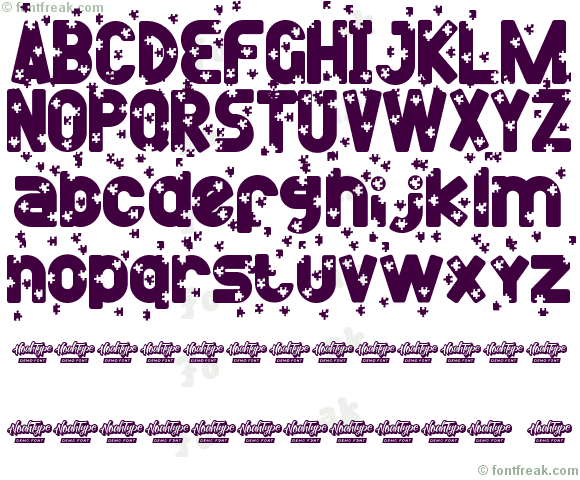
Mini Puzzle Demo
About Mini Puzzle Demo
The Mini Puzzle Demo font by Noah Type is a unique display typeface that captivates with its playful and whimsical style. This font features a chunky, bold design that exudes a sense of fun and creativity, making it ideal for various graphic applications. Its stroke weight is consistent throughout, providing a robust presence while allowing for legibility. The characters are spaced generously, enhancing readability and ensuring that each letter stands out, while the decorative puzzle-like elements add a distinctive flair that engages the viewer's attention.
This font is particularly well-suited for use in children's books, educational materials, or any project that aims to convey a sense of joy and playfulness. It can also shine in marketing materials for toy stores, birthday party invitations, or creative workshops. The Mini Puzzle Demo font can bring a fresh perspective to social media graphics, making it a favorite among content creators looking to add a touch of whimsy to their posts. Graphic designers will appreciate its versatility in crafting eye-catching logos, vibrant posters, or engaging website headers.
The target audience for the Mini Puzzle Demo font includes graphic designers, small business owners, and content creators who seek to infuse their projects with a sense of fun and creativity. This font’s unique style makes it a fantastic choice for anyone wanting to attract attention and evoke a playful atmosphere.
What truly sets the Mini Puzzle Demo font apart is its ability to blend a bold, engaging design with a sense of lightheartedness. Its free availability as a freeware license further enhances its appeal, making the Mini Puzzle Demo font free download an enticing option for those looking to elevate their design projects with a distinctive touch.